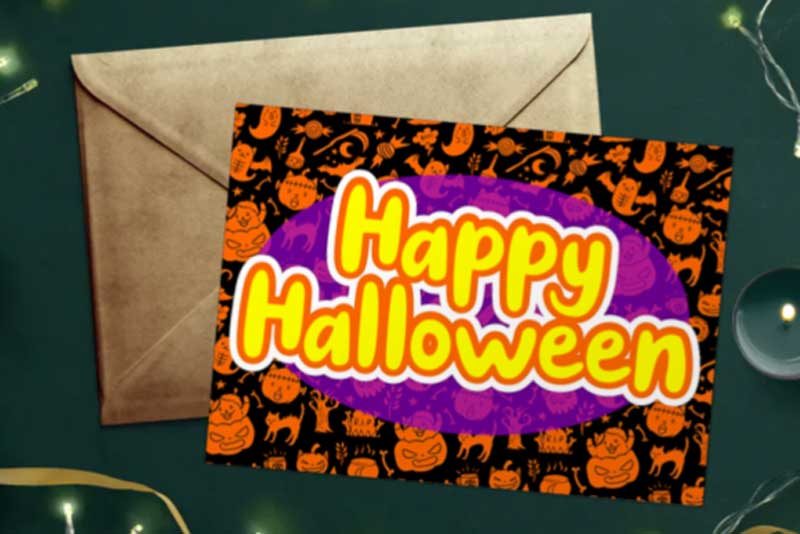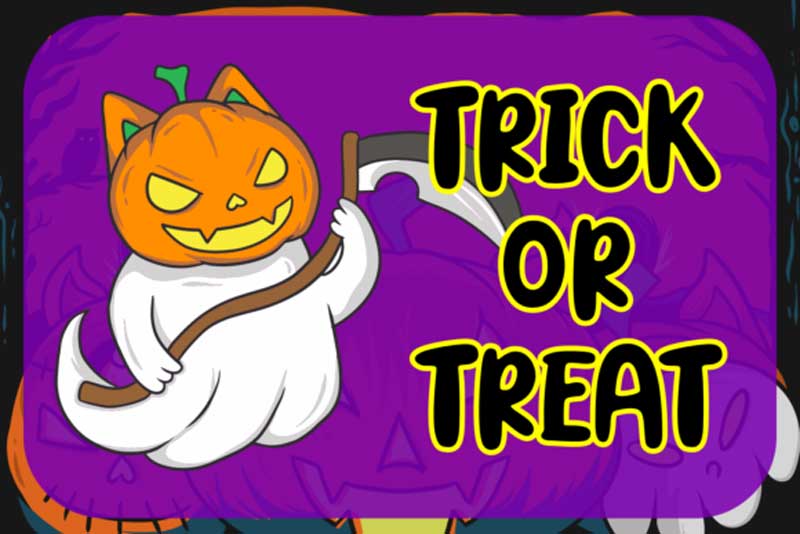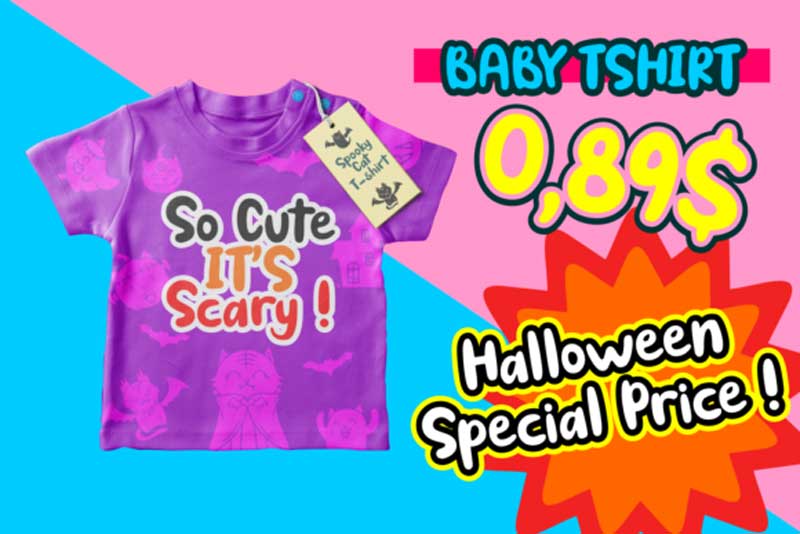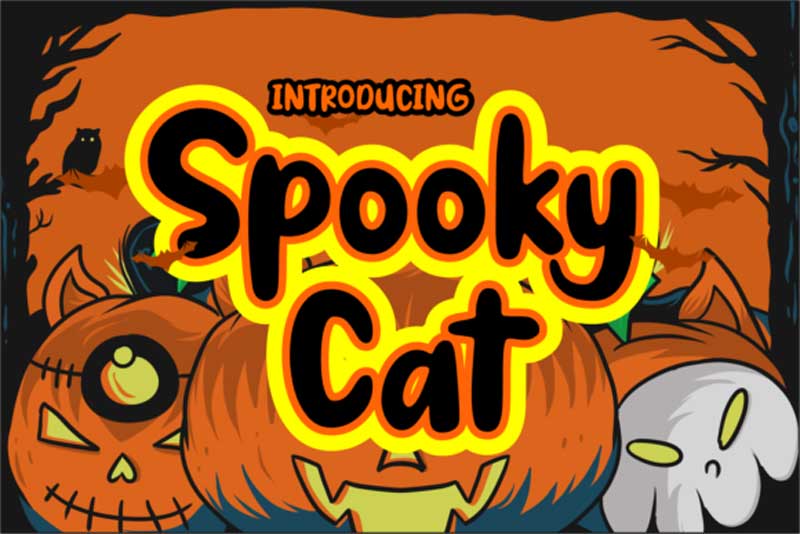
Spooky Cat Font Family
Introducing the creativefabrica Spooky Cat Font Family. Spooky Cat is a Halloween inspired display font with lovely style. Get inspired by its contemporary coolness. recommended for you Kriuk Kriuk Font Family and Microba Pro SVG Font + Vector